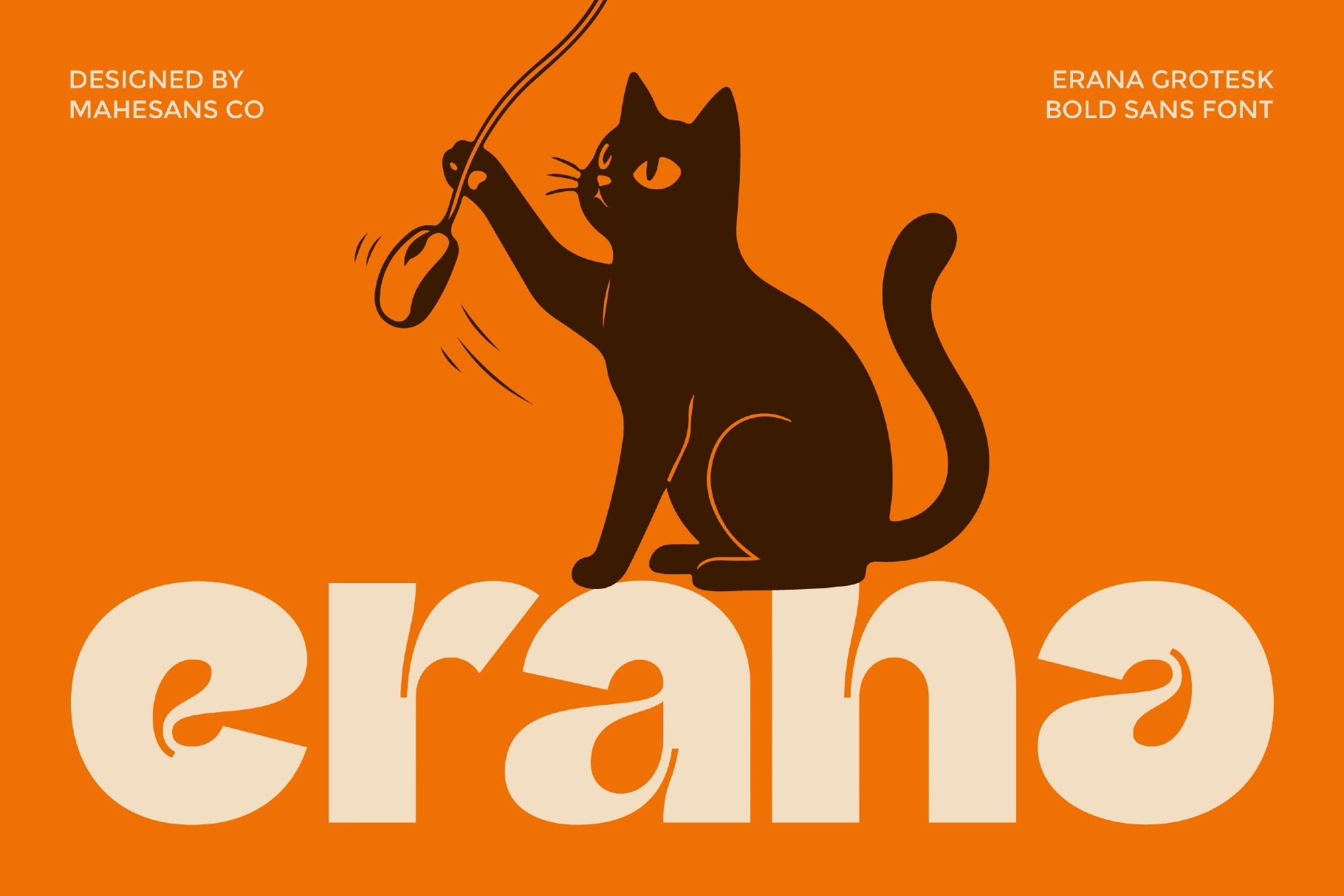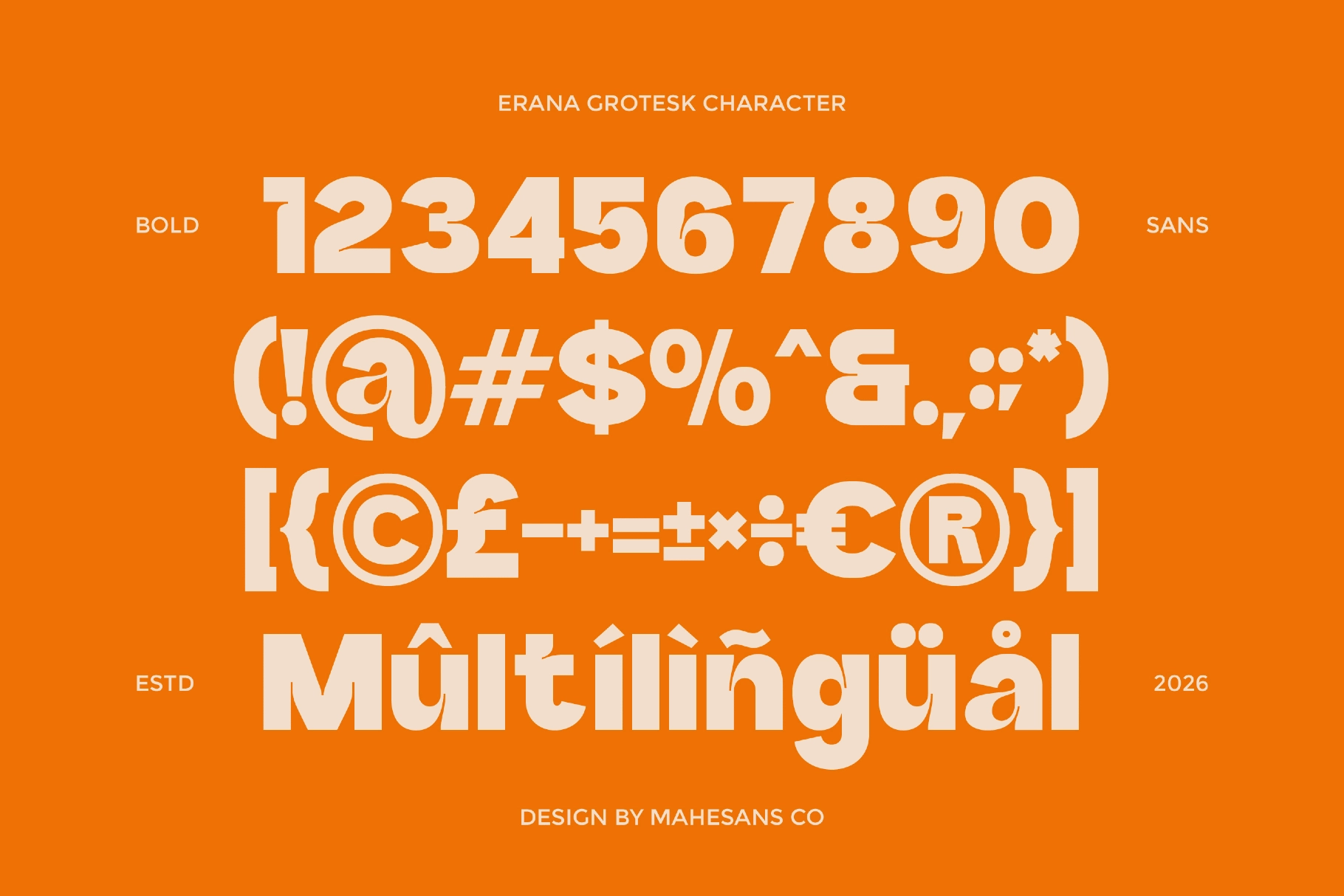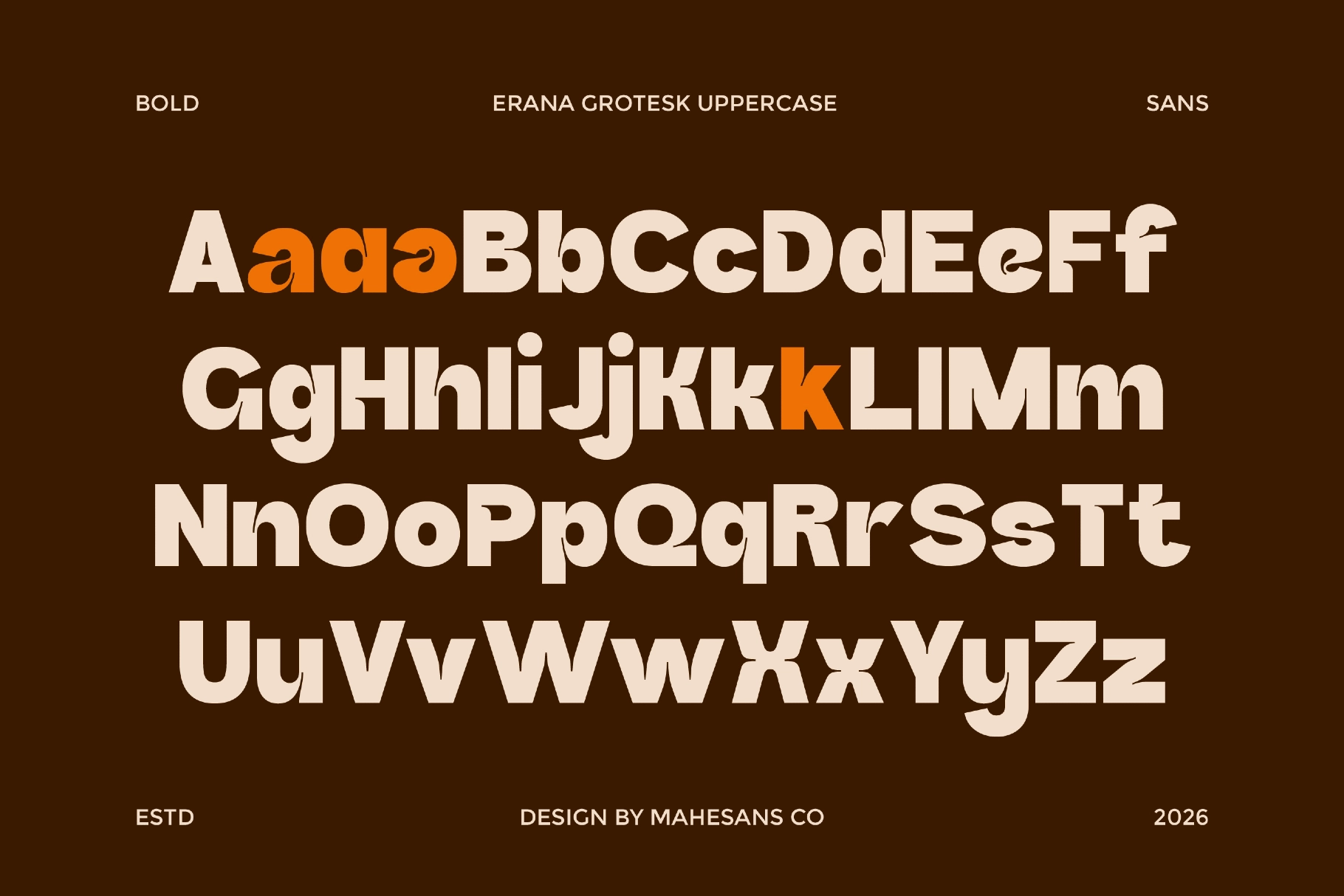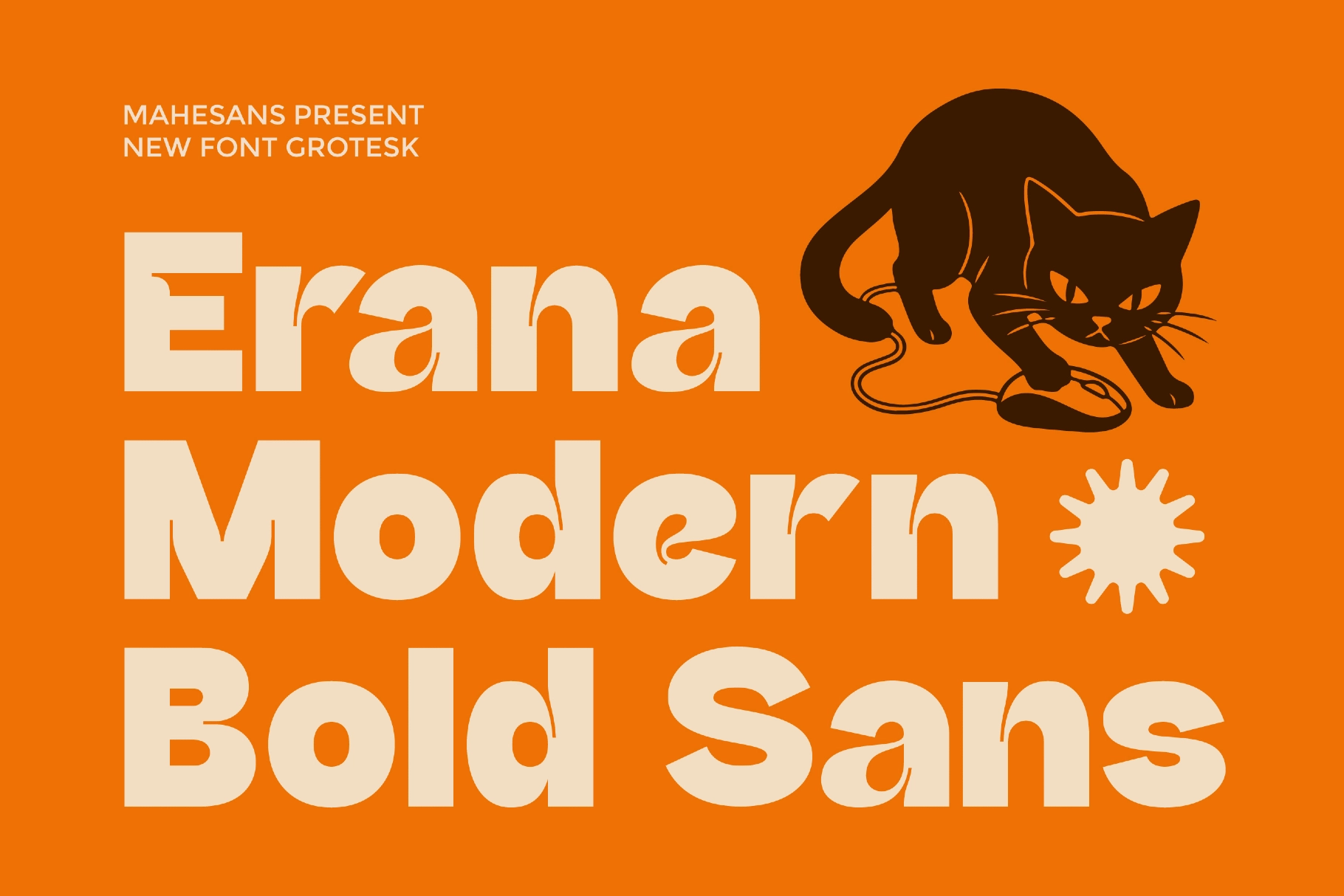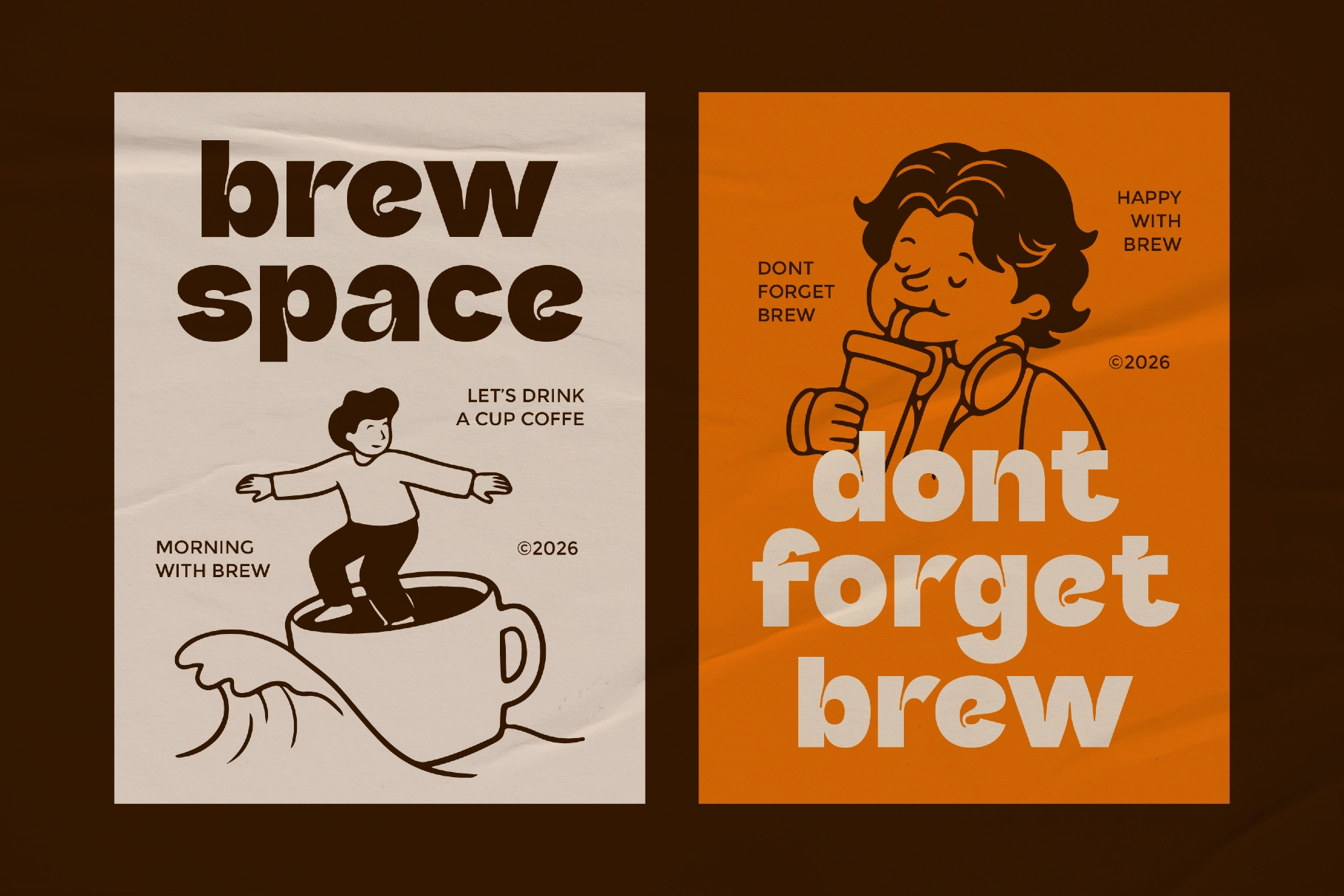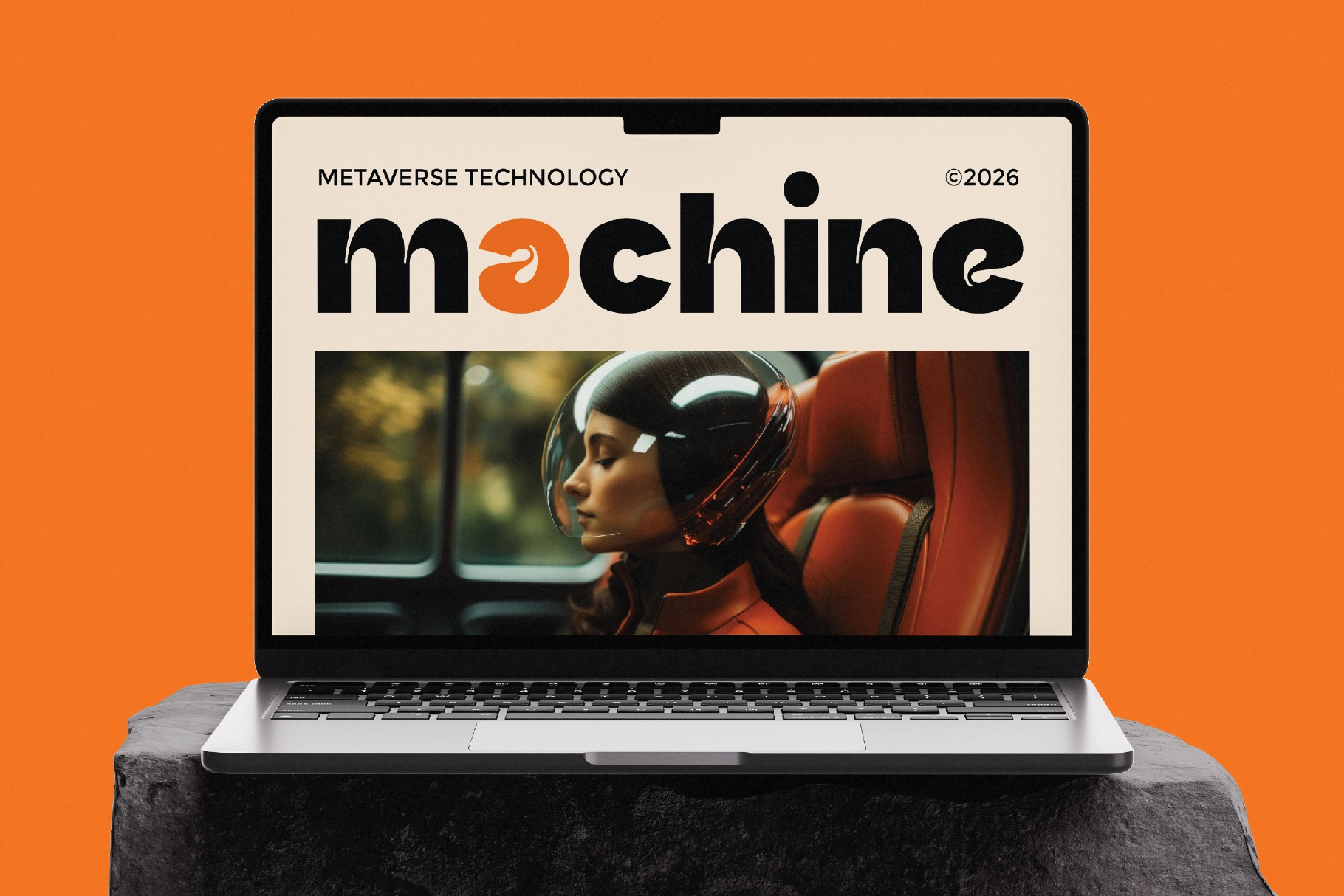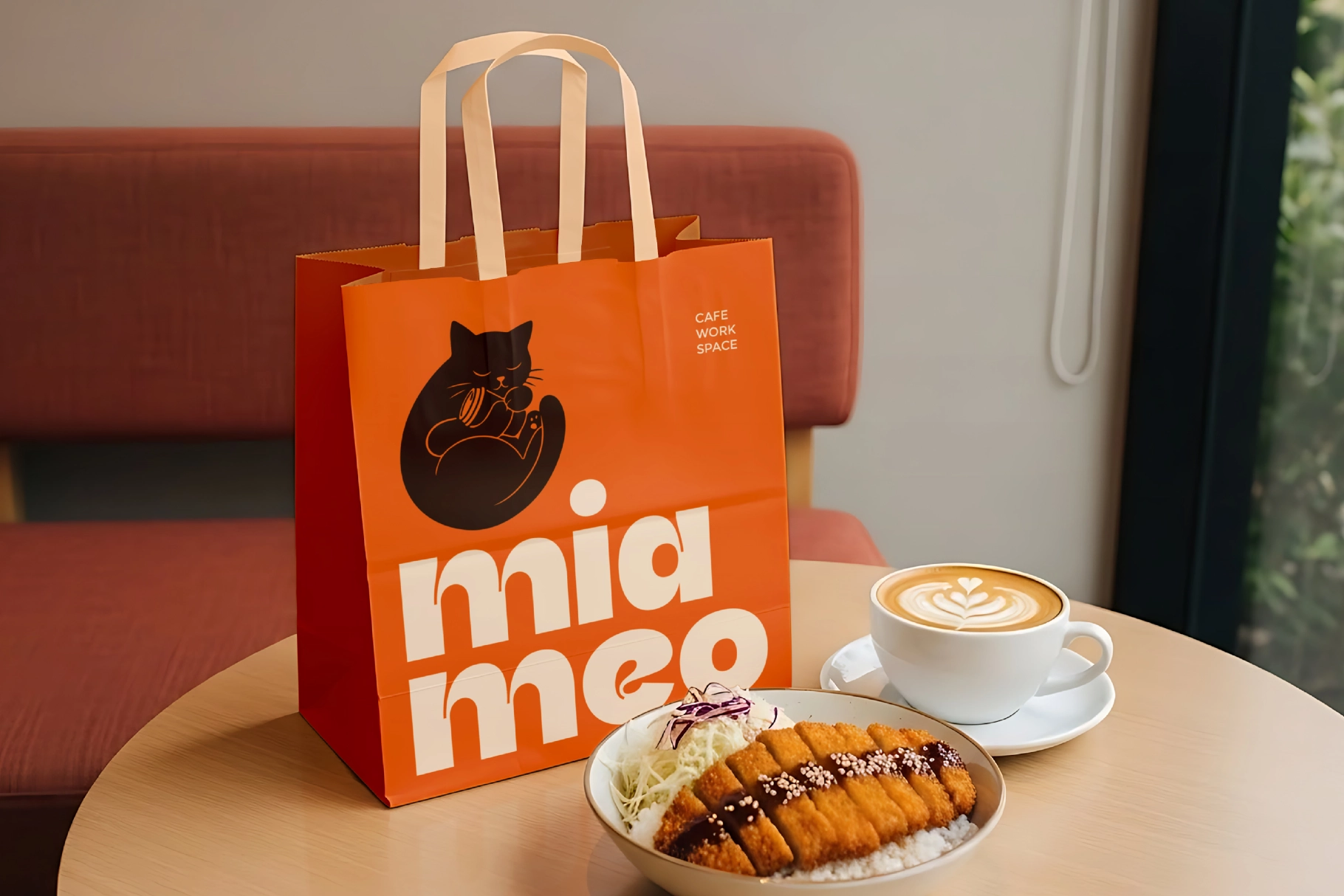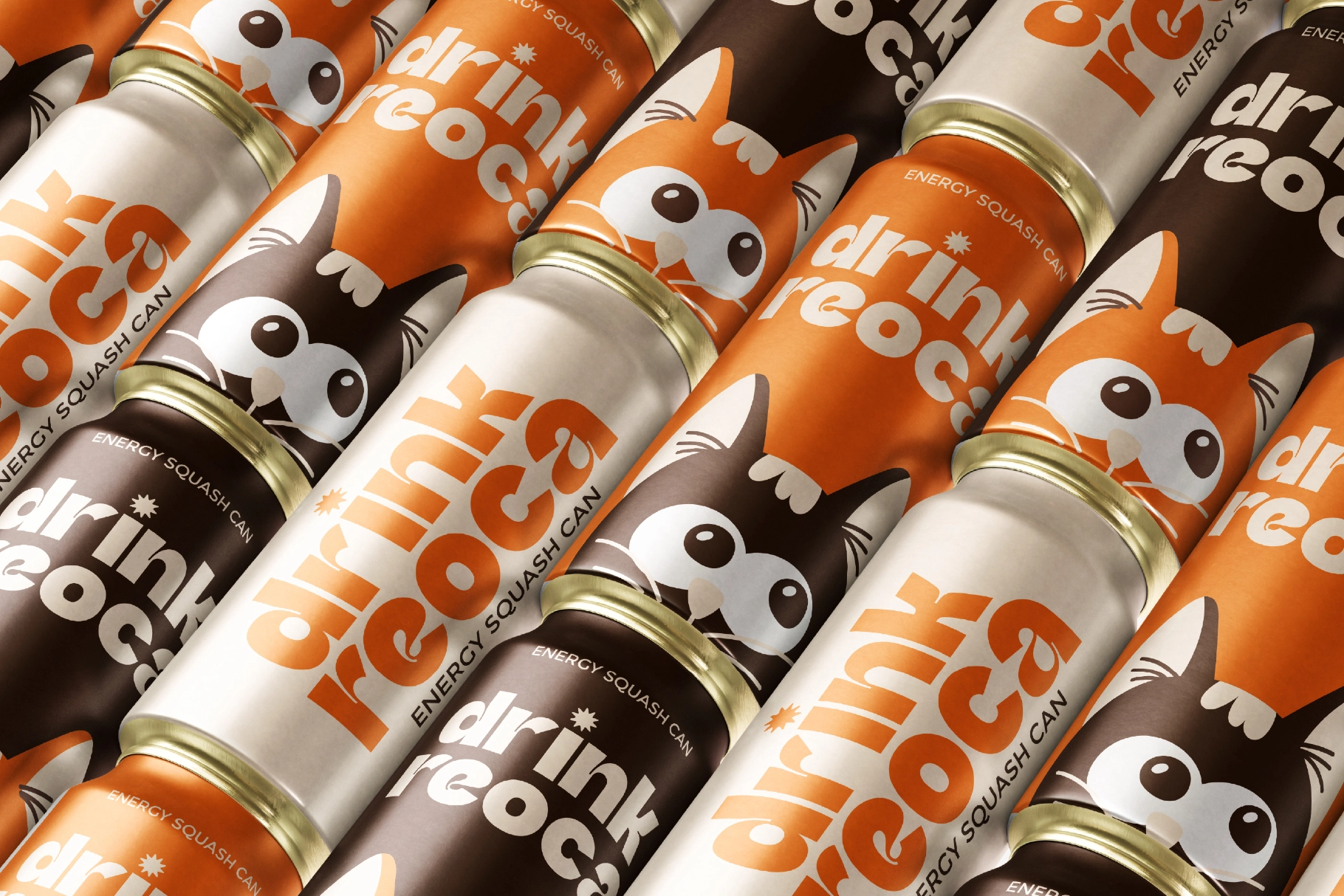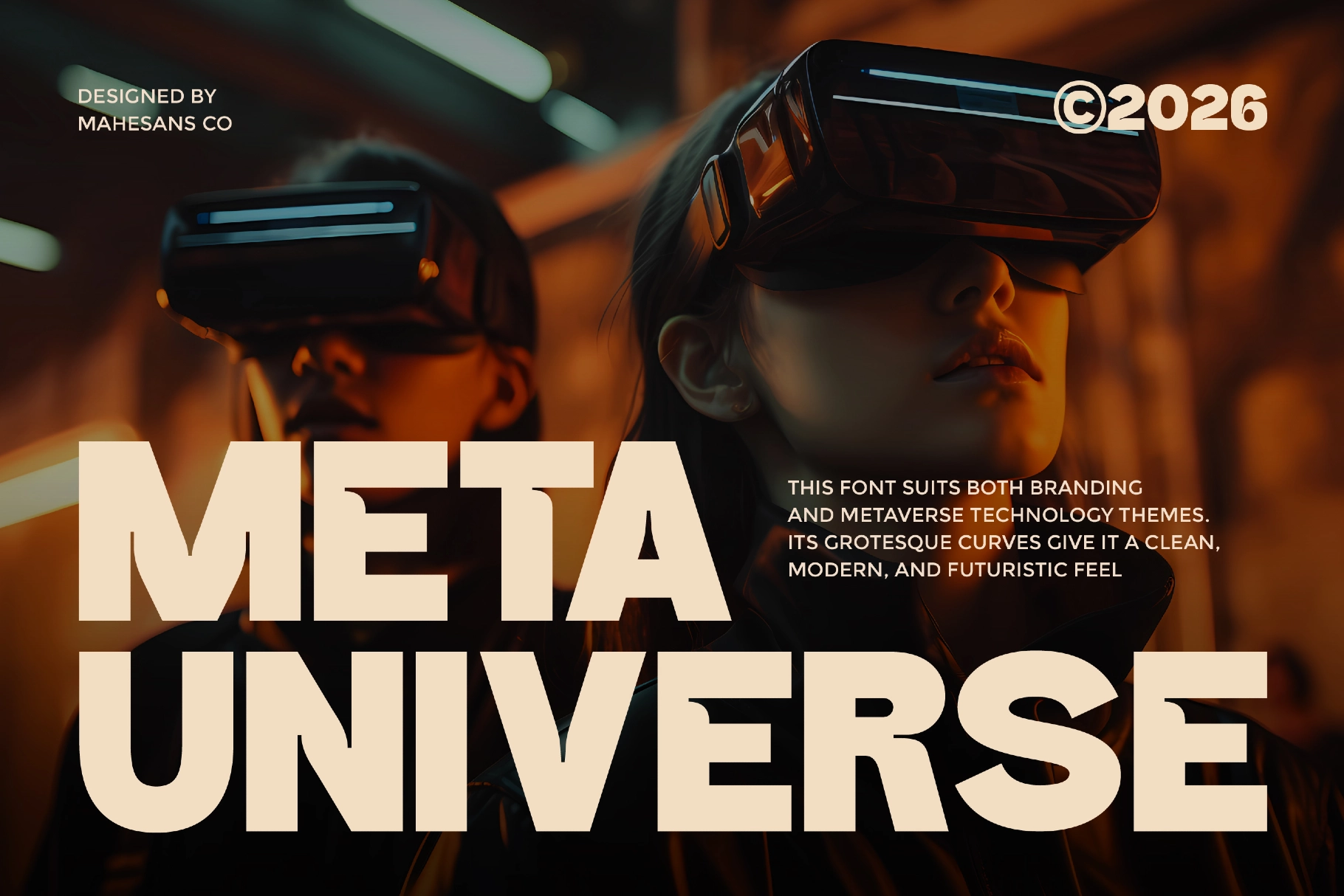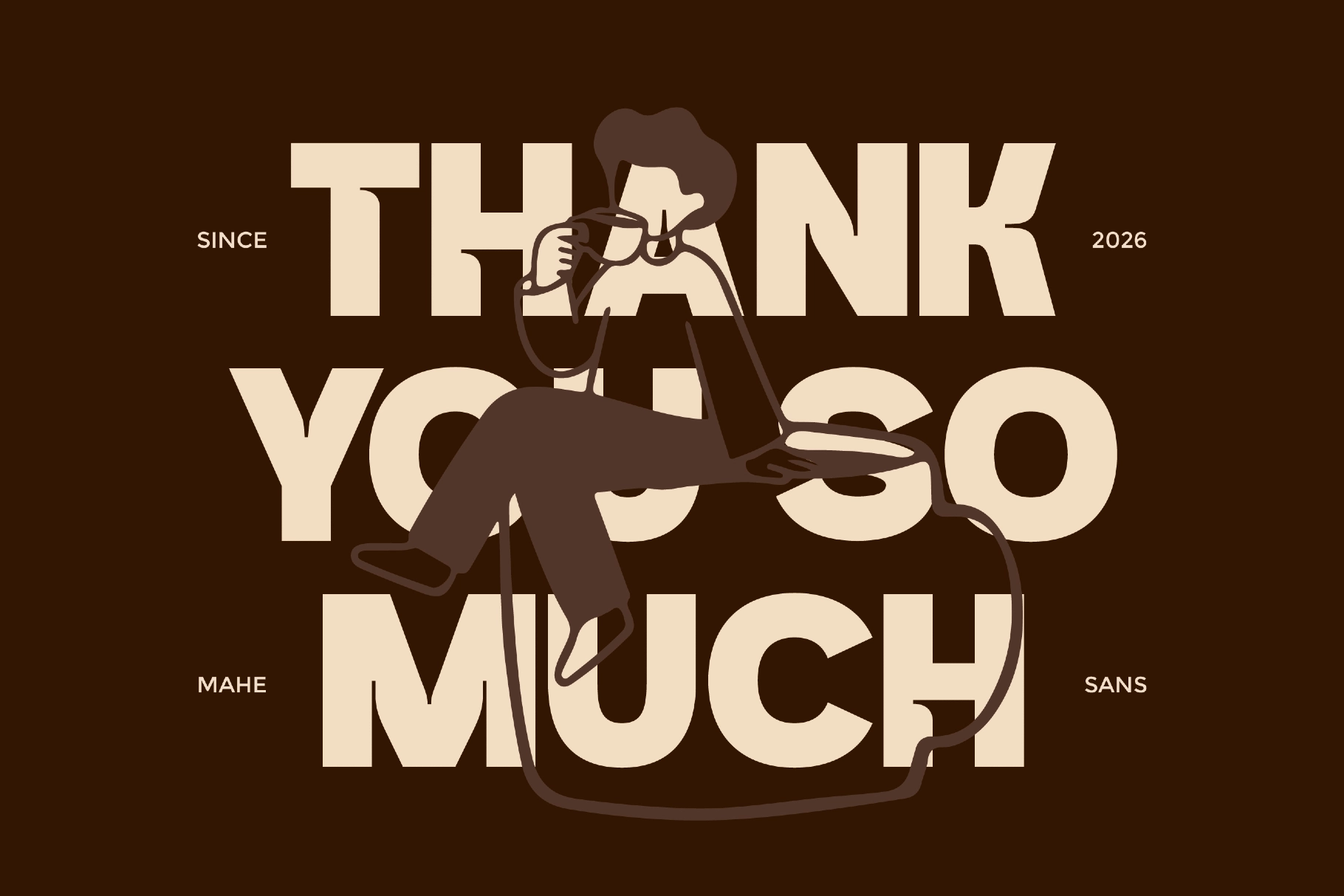
Erana Grotesk – Bold Sans Serif Font
Erana
This retro sans serif font is chunky, rounded, and full of graphic attitude. Its heavy strokes, soft curves, and playful cut-in details give headlines a friendly punch, with enough clarity for branding systems that need big type to do the talking.
Erana works well for coffee shop identities, logo design, poster headlines, packaging, editorial titles, social media graphics, merch, food and drink branding, vintage-inspired campaigns, sticker designs, café menus, and bold web banners.